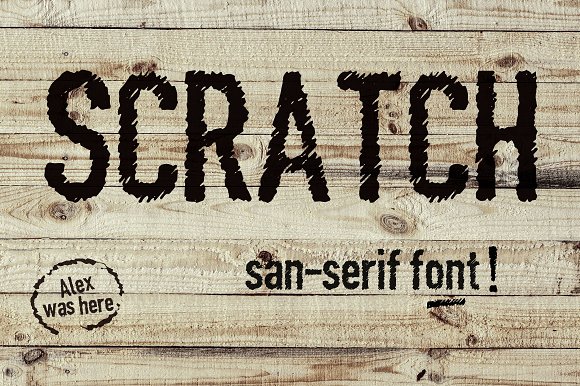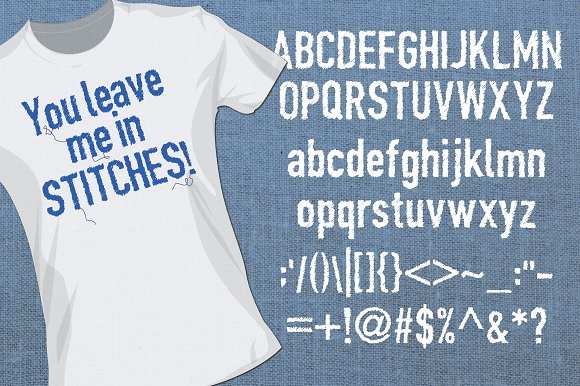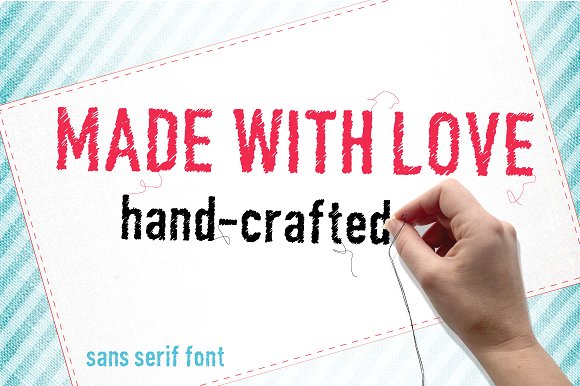
Made with love font
Made with love is a sans serif font that has a hand-stitched or scratched appearance.
Use it to market your hand-made products, packaging, web design, clothing or in other design projects.
Includes all characters, upper and lower case, as well as symbols, punctuation marks etc.